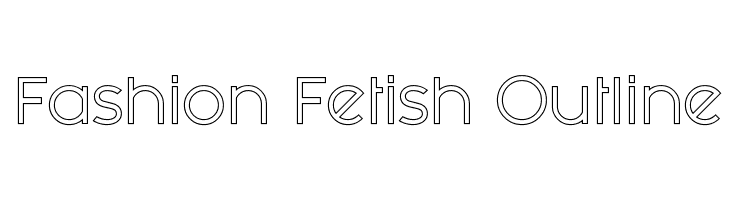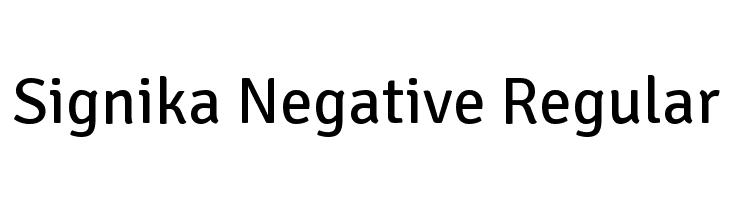
A modern, light sans-serif font with clean lines and excellent readability.
A bold, italic serif font with classic elegance and modern flair.
A modern, geometric sans-serif typeface with clear, balanced characters.
A bold, geometric font ideal for impactful headlines and logos.
A bold, italic font with a dynamic and modern style.
A modern sans-serif font with clean, geometric letterforms.
A sleek, modern italic font with clean lines and elegant curves.
A modern, geometric outline font with clean lines and consistent stroke width.
A modern, light, and italicized font with sleek, thin strokes.